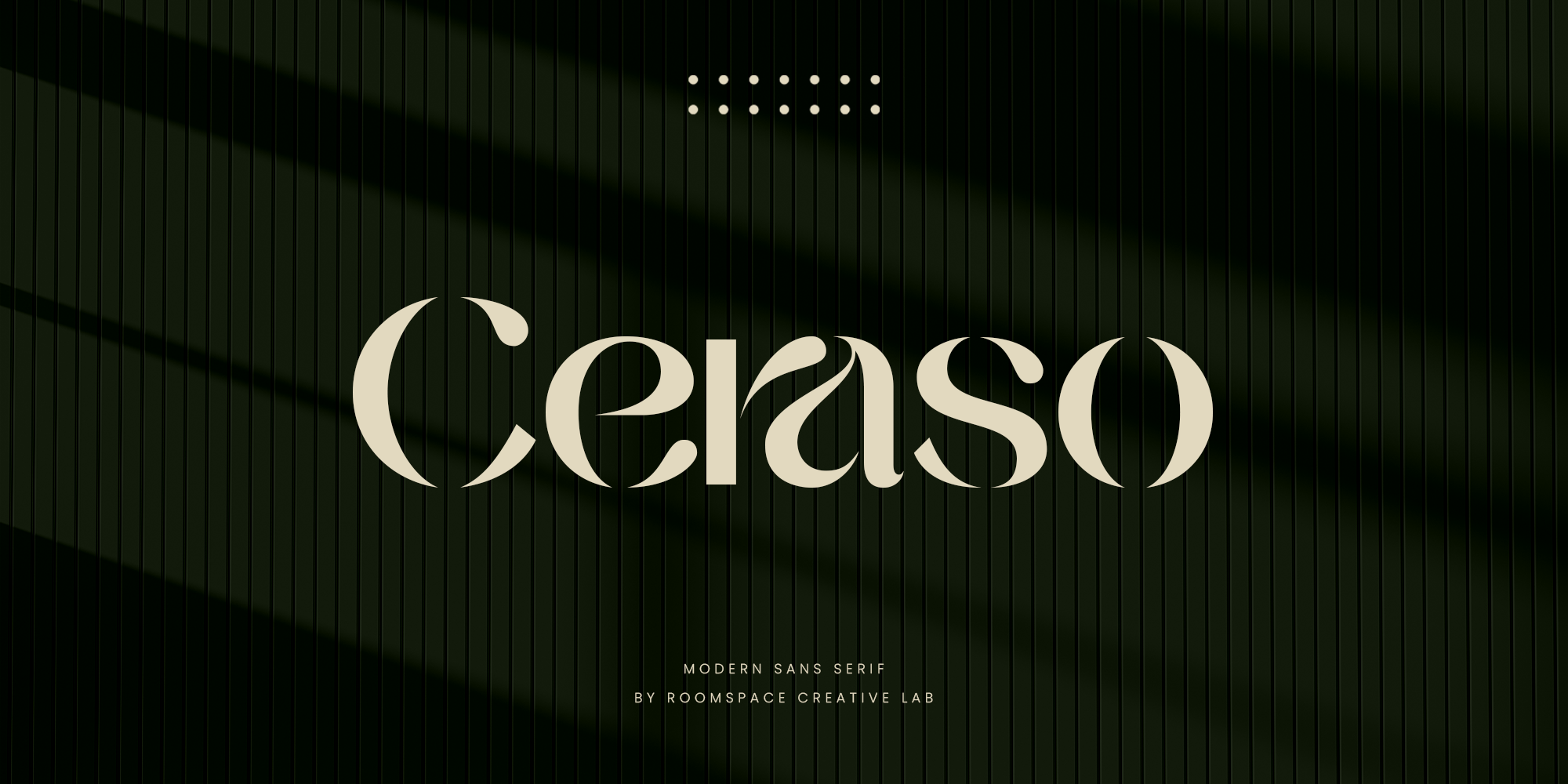
Ceraso Font is excellent for artisan food branding, organic fruit packaging, gourmet dessert marketing, natural cosmetic labels, Mediterranean restaurant signage, premium juice brands, fresh market advertising, seasonal harvest campaigns, botanical product design, and wholesome lifestyle communications.
What makes Ceraso Font exciting is its fresh organic character that perfectly captures the natural sweetness and vibrant vitality of ripe cherries and fresh garden harvests. This typeface features rounded letterforms with organic curves and nature-inspired details that evoke the wholesome goodness and seasonal beauty of fresh fruits and natural ingredients. The font's fresh personality and organic authenticity make it ideal for food and wellness brands seeking to convey natural purity, seasonal freshness, and the wholesome goodness that comes from nature's finest harvests and organic cultivation.
Ceraso Font family includes fresh weight variations and organic alternatives that enhance its natural appeal while providing design flexibility for food and wellness applications. The font features organic ligatures, fruit-inspired ornaments, and fresh character variations that create authentic harvest atmosphere for natural and organic branding.
Organic food companies and natural wellness brands consistently choose Ceraso Font Free Download for projects requiring authentic natural appeal and wholesome credibility. The font's fresh character excels in applications targeting health-conscious consumers who appreciate genuine organic quality and natural ingredients. Whether you're designing for organic farms, natural food products, or wellness brands, this wholesome typeface delivers the natural authenticity and fresh vitality that resonates with audiences seeking genuine organic experiences and the pure goodness that comes from nature's finest seasonal harvests and sustainable farming practices.